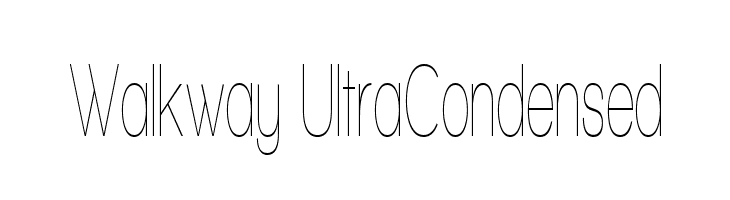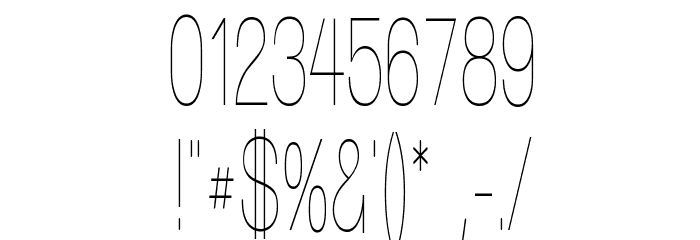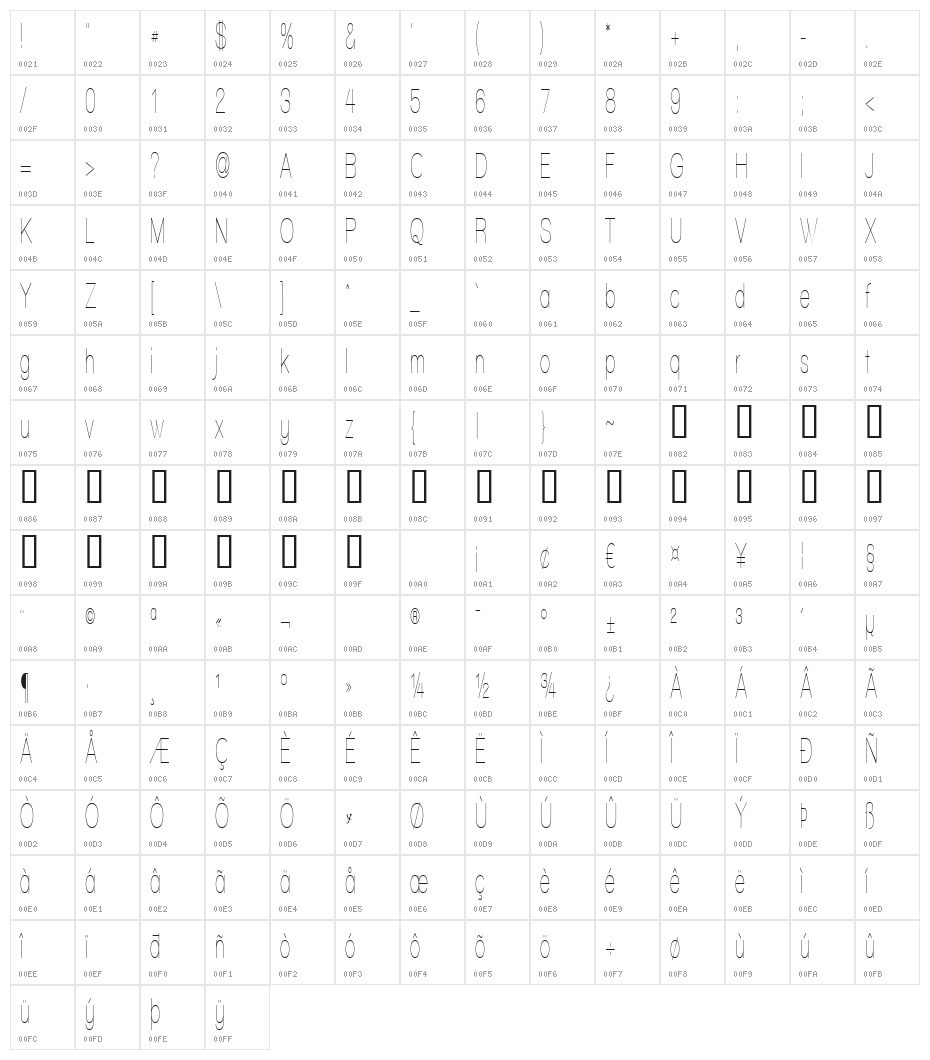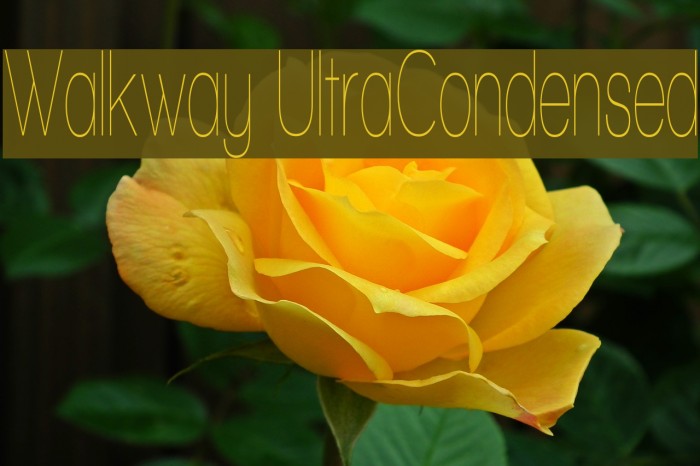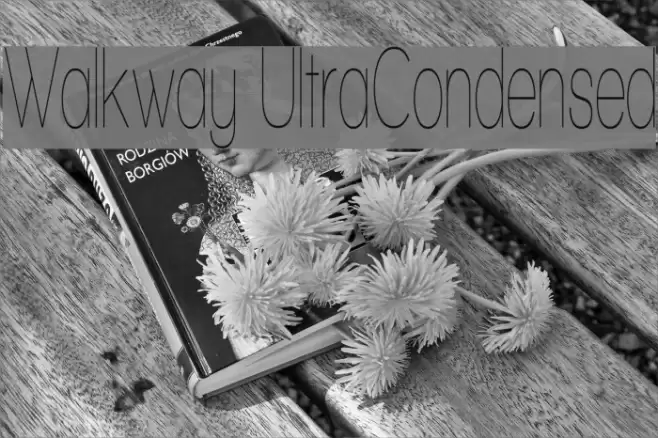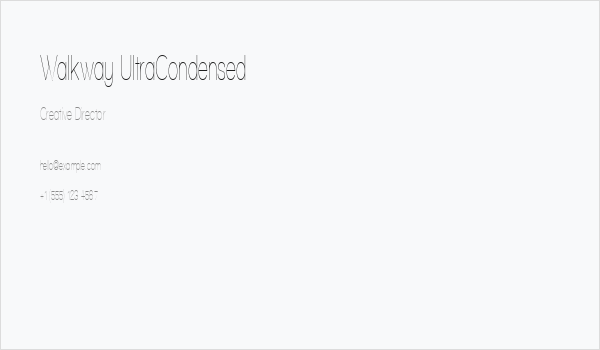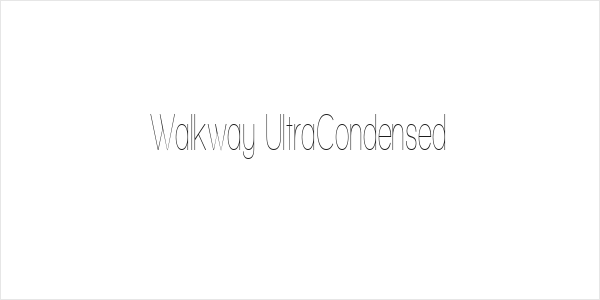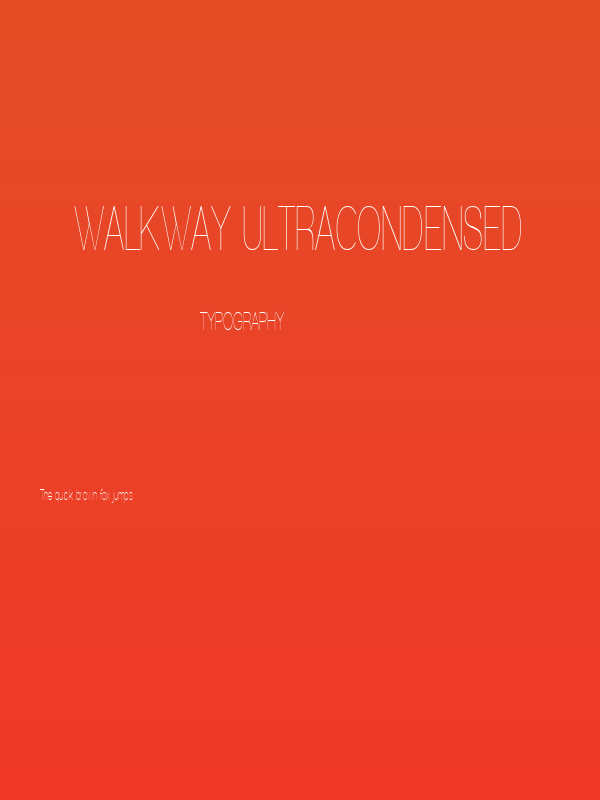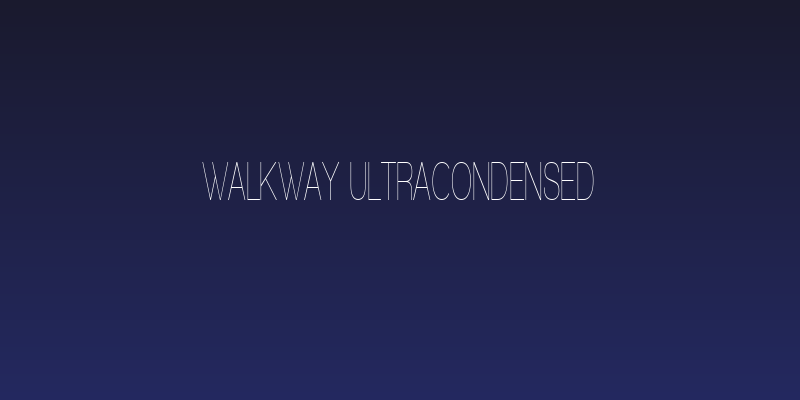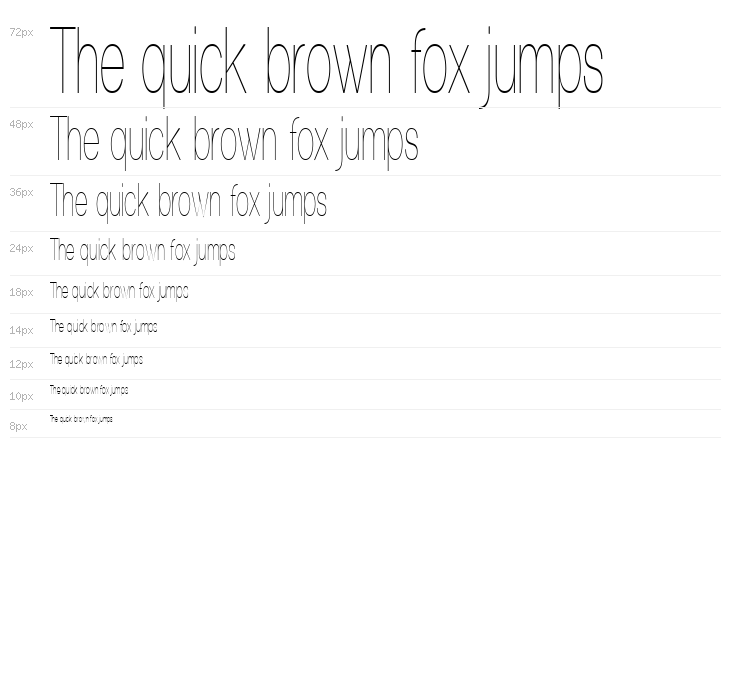
Walkway UltraCondensed Font
Walkway UltraCondensed Description
This font features an ultra-condensed style with thin, elegant lines that create a sleek and modern appearance. The characters are tall and narrow, emphasizing verticality and providing a sophisticated, minimalist aesthetic. The uppercase and lowercase letters maintain consistent proportions, enhancing readability despite the condensed nature. The numerals and special characters follow the same design principles, ensuring uniformity across all glyphs. This font's clean lines and understated elegance make it suitable for contemporary design projects where space is limited but style is paramount.
| Proposed Projects | Ideal for fashion magazines, modern branding, minimalist posters, and space-constrained designs. |